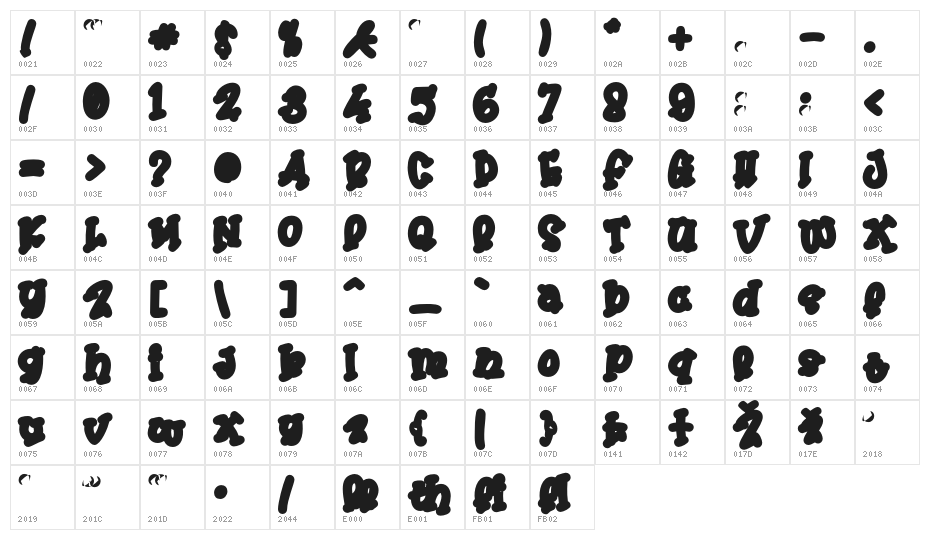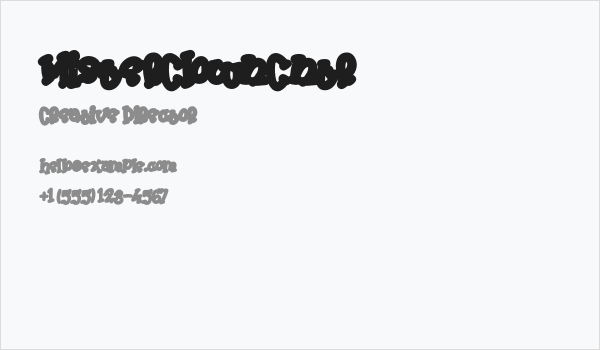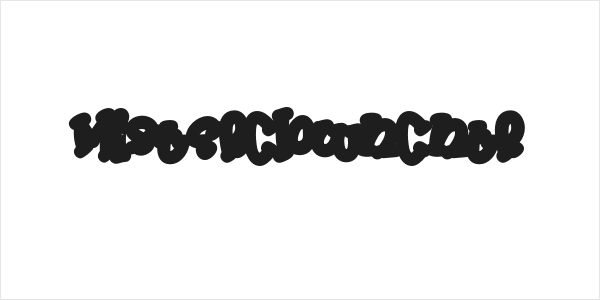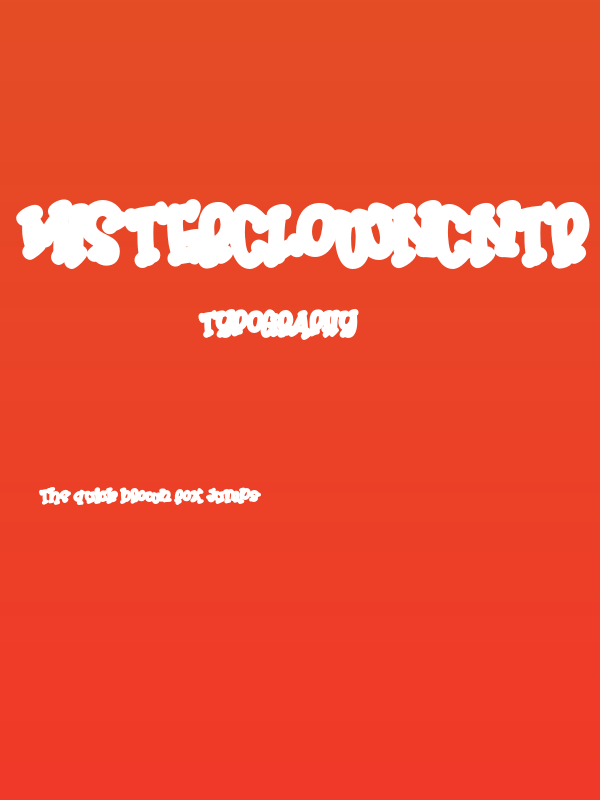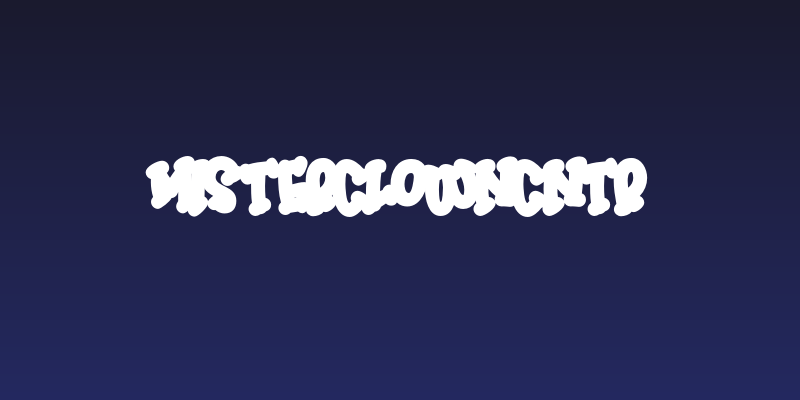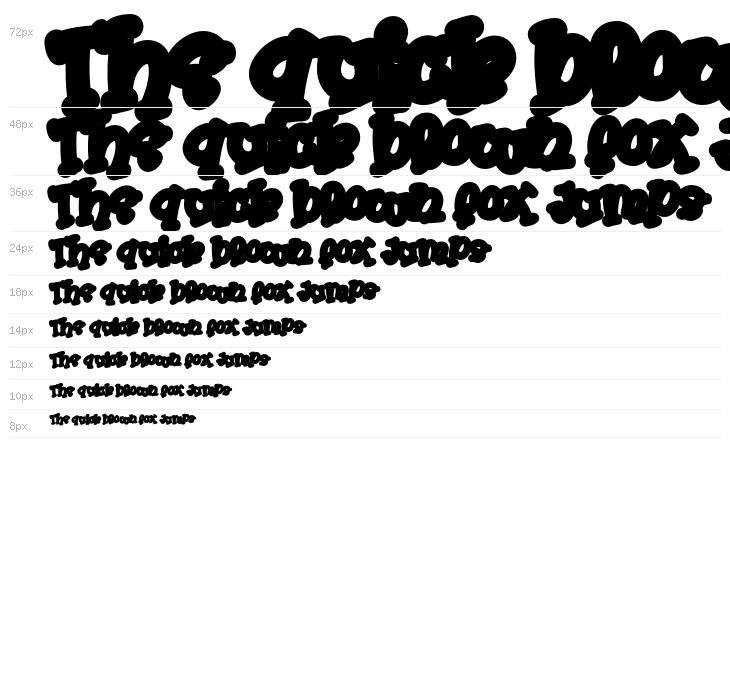
MisterClownCntr Font
MisterClownCntr Description
This font features a bold, playful style with exaggerated, rounded forms. The characters are heavily stylized, with thick strokes and a bubbly appearance that creates a sense of whimsy and fun. The uppercase and lowercase letters maintain a consistent weight, contributing to a cohesive look. The numbers and special characters follow the same design principles, ensuring uniformity across all elements. This font's unique style makes it stand out, offering a distinctive aesthetic that is both eye-catching and memorable.
Overall StylePlayful, Whimsical
Use CaseLogos, Posters, Headlines
Proposed ProjectsIdeal for children's book covers, playful branding, party invitations, and creative posters.